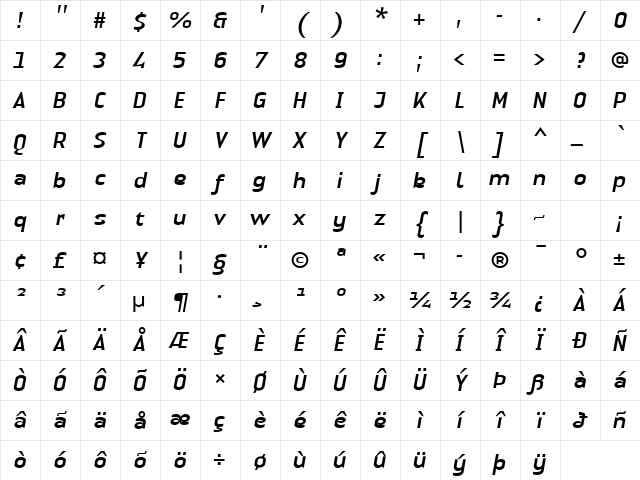
Complete LTAuthenticSans Italic Italic glyph index. Displaying only characters natively supported by LTAuthenticSans Italic Italic font.
LTAuthenticSans Italic is a composed and adaptable typeface that performs quietly and consistently across a wide range of design contexts. The slanted form adds forward momentum and visual energy.
Pro Tip: Use LTAuthenticSans Italic for emphasis, pull quotes, and subheadings where its slanted energy can add rhythm to the layout.